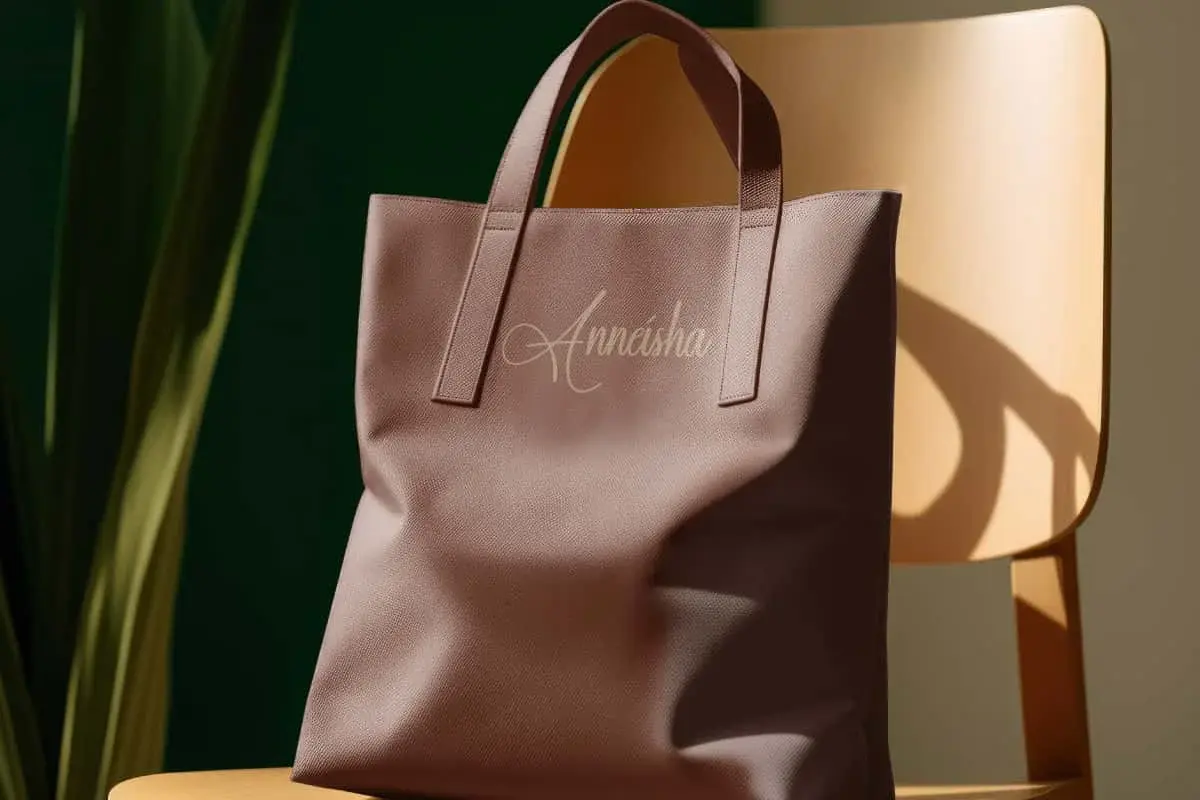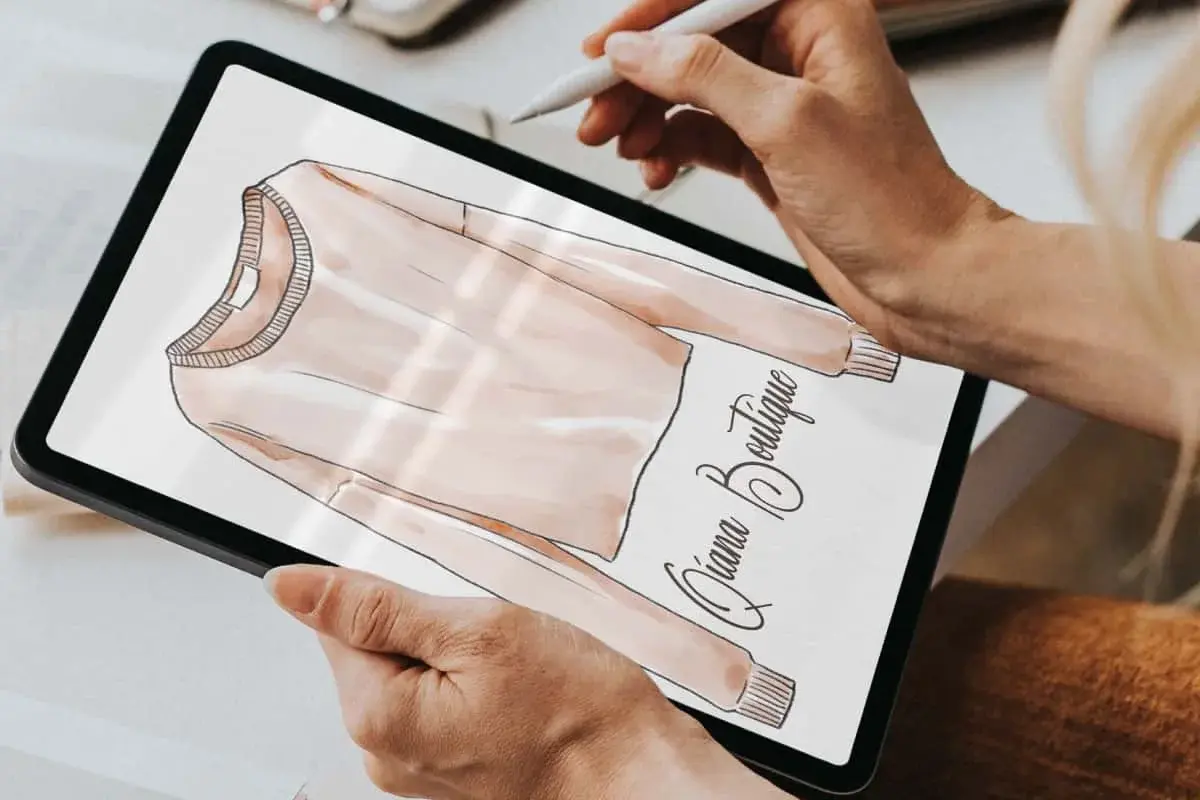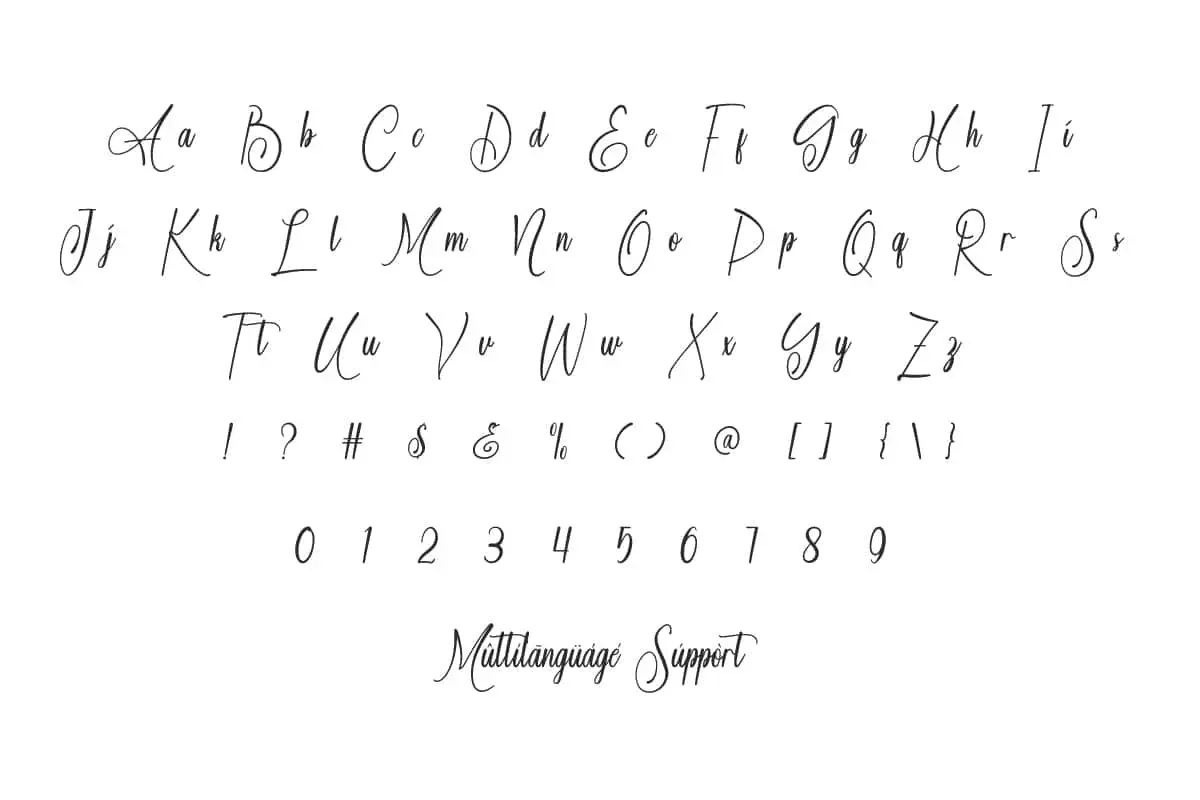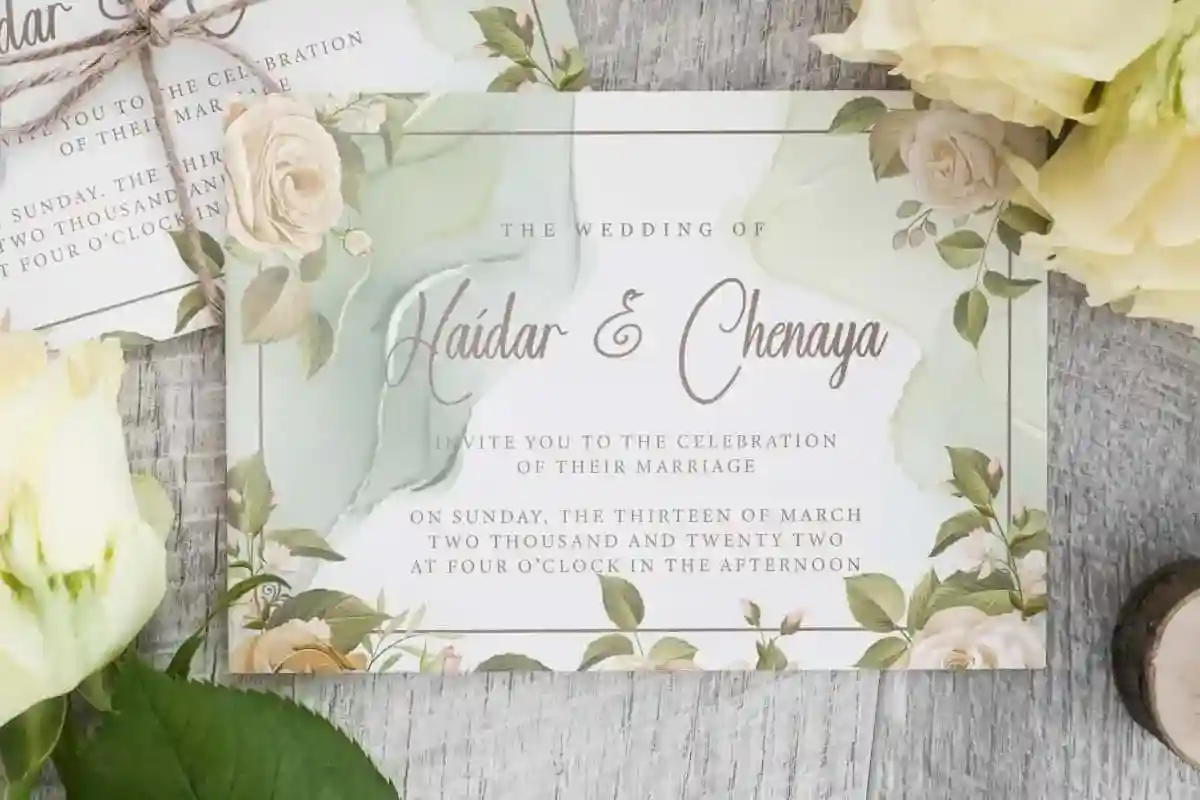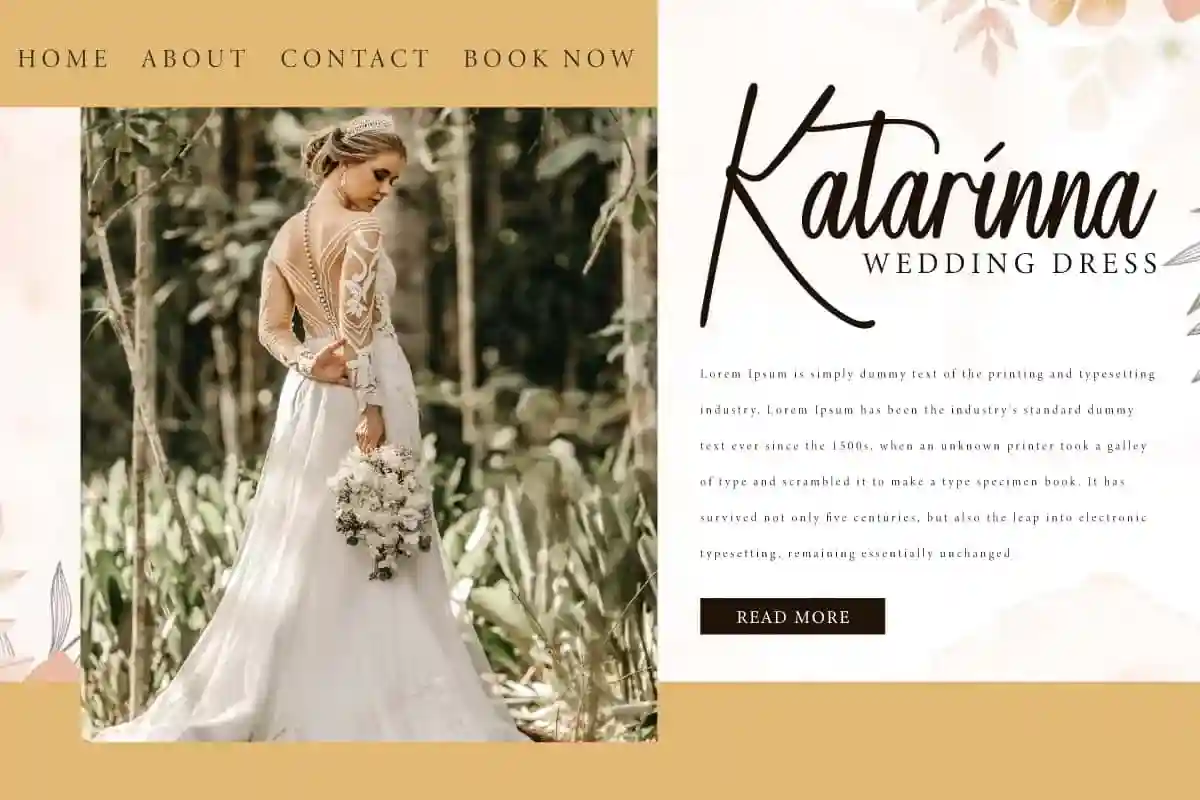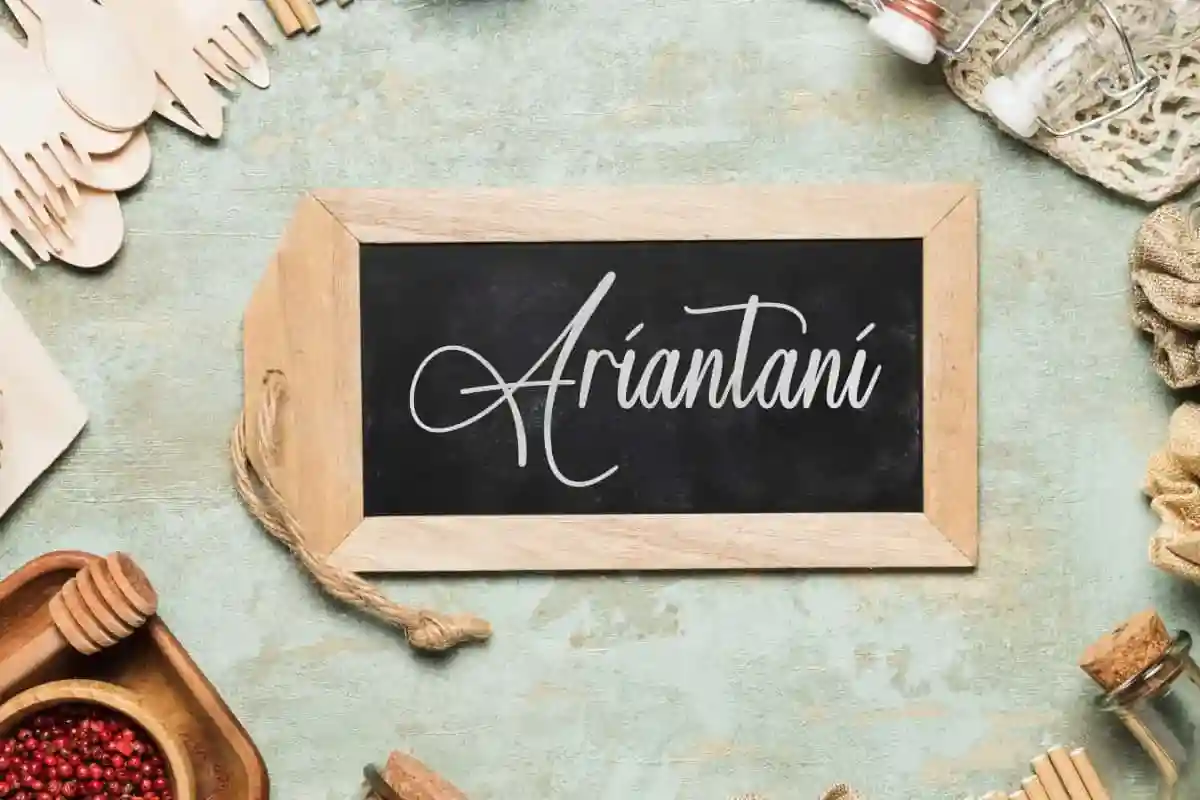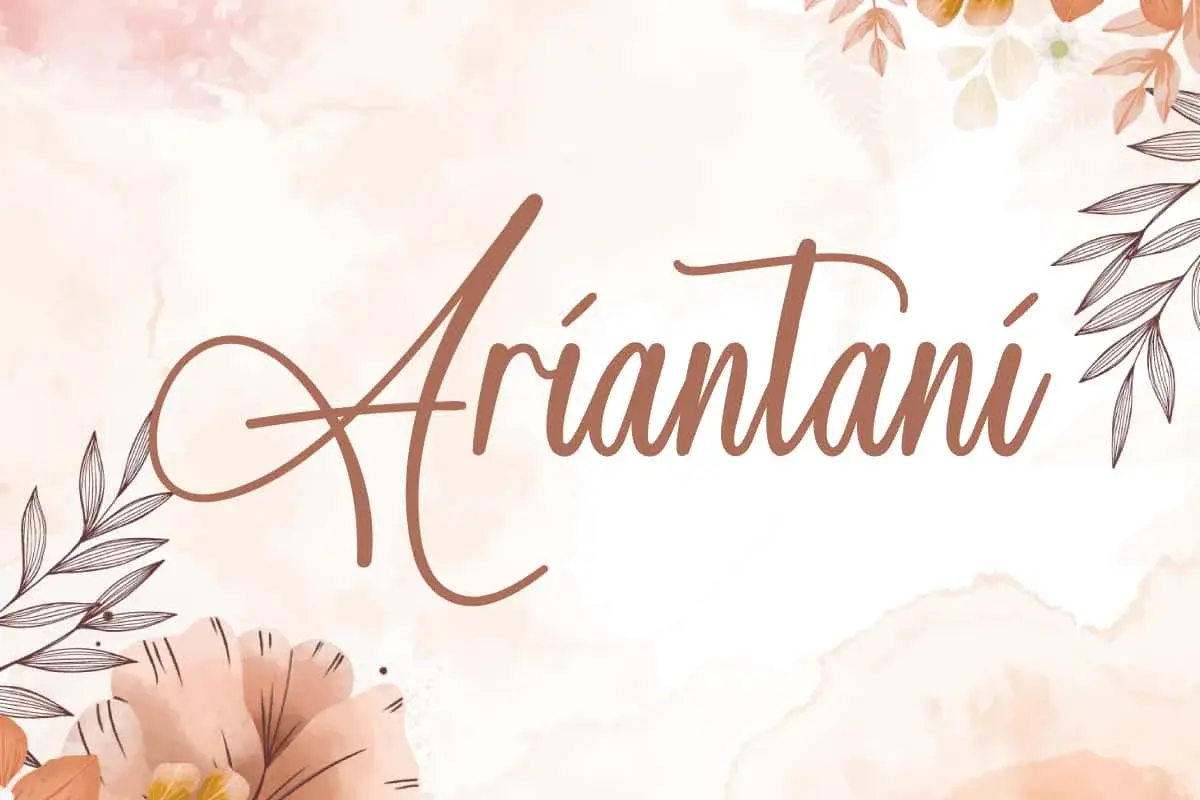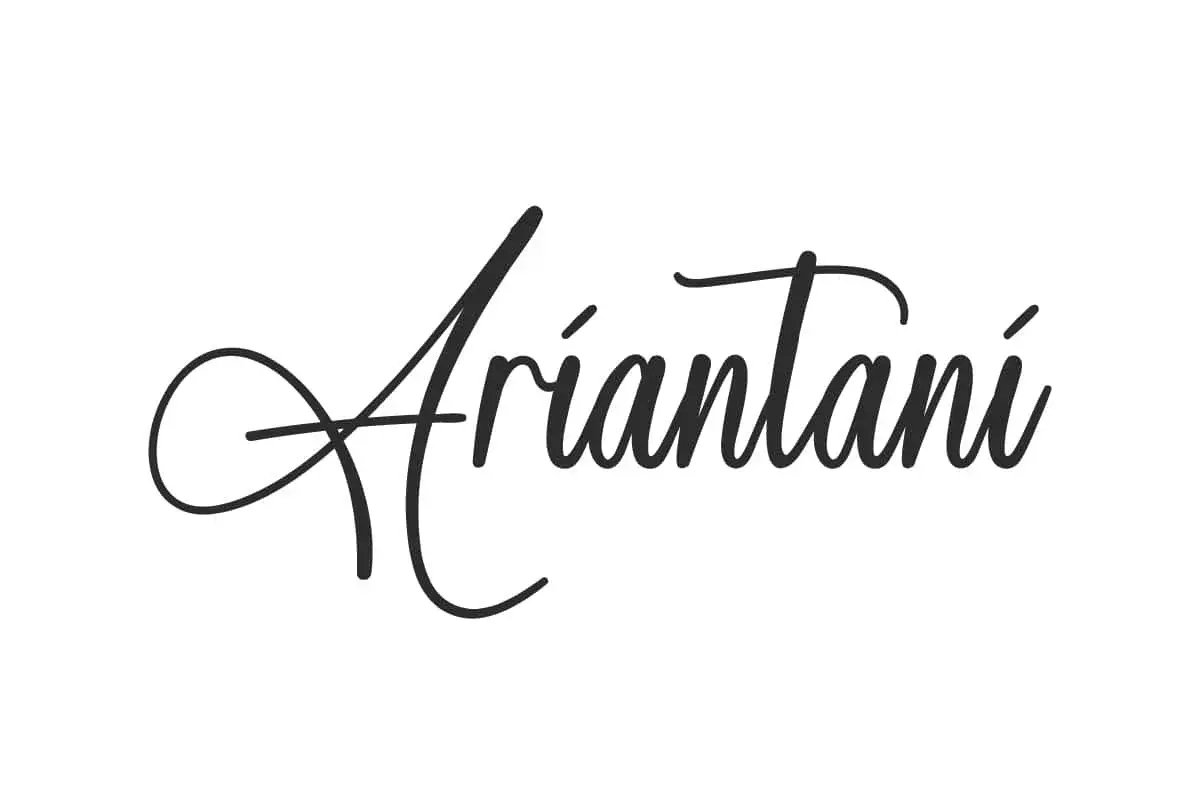
Ariantani Font is a charming elegant handwritten font that is truly versatile and will create stunning designs that leave a lasting impression on every occasion.
Ariantani Font is a charming signature handwriting font designed with vintage and modern elegance. The lettering has a smooth and organic quality that will add an elegant and personal touch. This font will be a versatile choice for any creative design and brings a warm and nostalgic feel to your designs, such as brochure, covers, greeting cards, invitations, labels, logo, mockup, packaging, print design, stationery, template, titles, etc.
Ariantani Font includes a complete set of Basic Uppercase and Lowercase Characters, Numbers, Punctuation Marks and Symbols. Each character in this font is carefully designed from beginning to end, creating a smooth and elegant look. This font offers endless possibilities for its users, adding a personal and artistic touch to every creation. Perfect for apparel, boutique, clothing brand, event organizer, fashion, florist, restaurant, spa salon, wedding, and more.